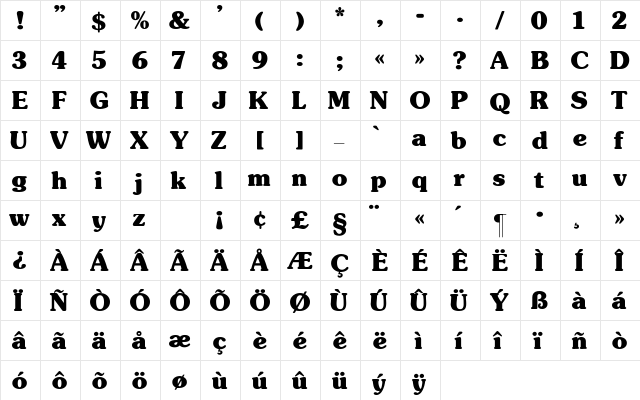
Souvenir_Bold Regular
Design Context for Souvenir_Bold Typeface
Souvenir_Bold takes a measured approach to typography — its balanced proportions and neutral character make it a reliable workhorse for both digital and print work. The heavy weight commands attention and anchors typographic hierarchies.